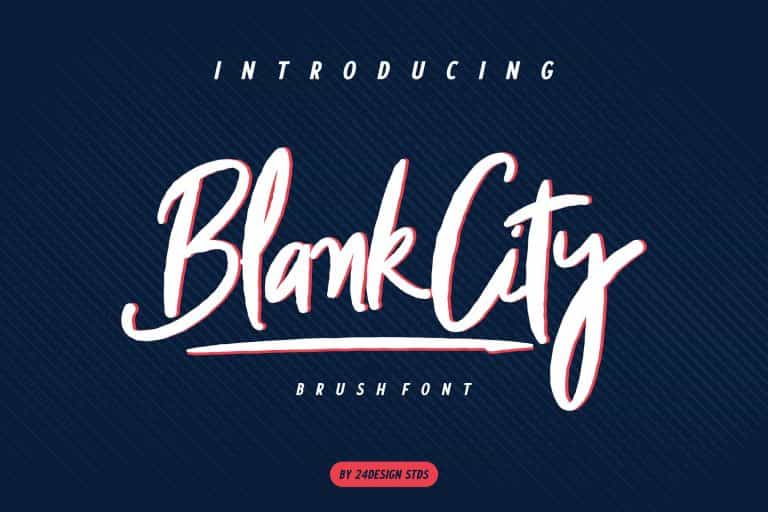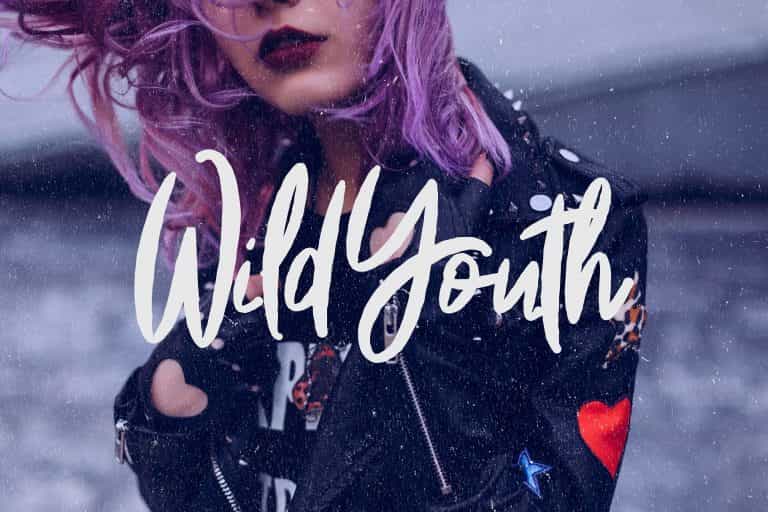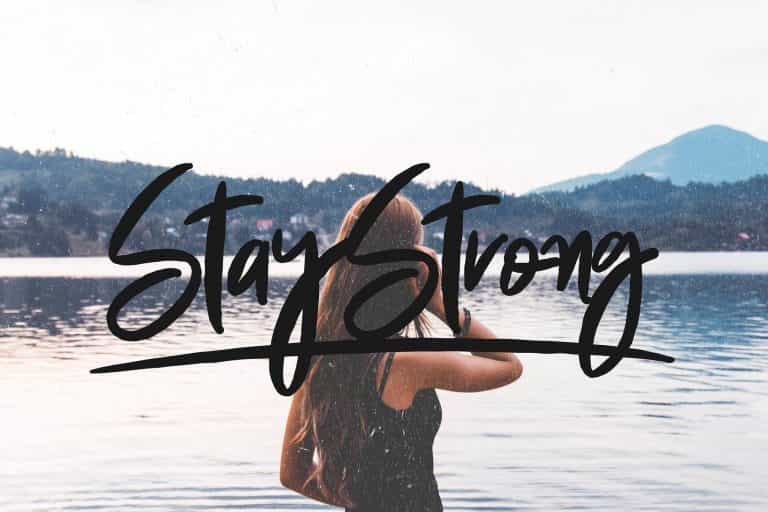
Blank City – is a modern brush script font designed by 24Design Stds. Blank City is a modern script rough font, every single letter has been meticulously designed to make your text look beautiful. With modern script style this font will perfect for many different project ex: Logo, photography, watermark, quotes, snapgram blog header poster wedding branding logo fashion apparel letter invitation stationery etc.